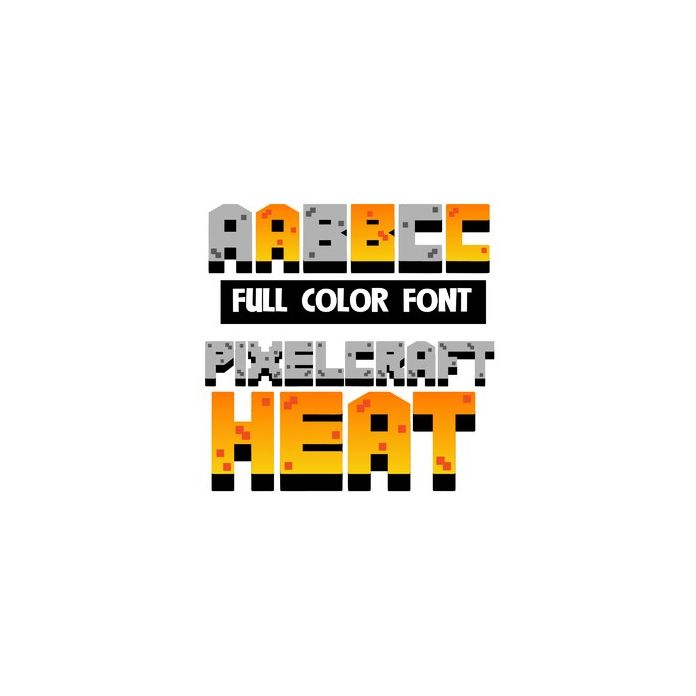
pixelcraft heat color font
This full-color font features pixelized lettering with a 3-d shadow. The uppercase is gray-scale and the lowercase is a gradient yellow and orange.